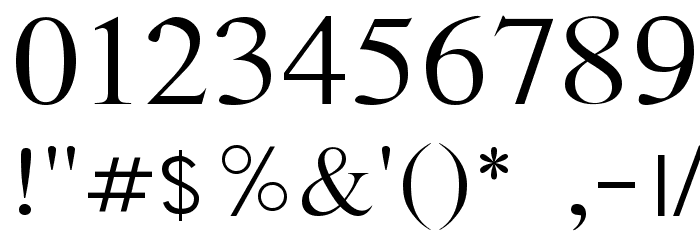
Akhar Font
This font features a distinctive and elegant style with a strong presence. The characters are designed with a high level of detail, showcasing a blend of traditional and modern elements. The strokes are bold and consistent, with a slight curvature that adds a touch of sophistication. The numerals are clear and easily readable, while the special characters maintain the overall aesthetic of the font. The spacing between characters is balanced, ensuring readability and visual appeal.
A bold and elegant font with a blend of traditional and modern elements.
- Proposed Projects: Ideal for branding, signage, and editorial design projects that require a strong and sophisticated look.
- Use Case: Logos, Headlines, Signage